14 Unique Vintage Script Fonts to Elevate Your Typography Library
Are you looking to breathe new life into your creative designs and add a touch of timeless warmth to your canvases? If so, we are thrilled to present 14 unique vintage script fonts to elevate your typography library! From elegant 19th-century penmanship to groovy psychedelic letters and rustic calligraphy, this handpicked collection has been beautifully curated to transform your everyday text into stunning works of art. Whether you are crafting delicate wedding stationery, designing modern retro logos, or building high-end packaging, these outstanding typography treasures are guaranteed to make your creations look completely custom-made. Let’s dive in and explore these mesmerizing designs!
Vintage Postman Font: A Nostalgic Masterpiece for Your Script Fonts Collection
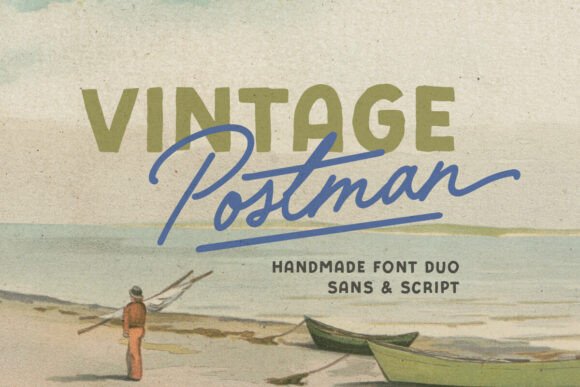
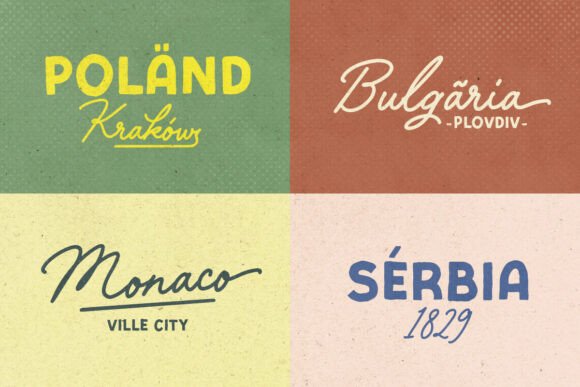
Transport your creative projects back in time with Vintage Postman, an exceptionally charming handmade font duo that effortlessly channels classic, old-school aesthetics. This unique pairing combines a sturdy, bold sans-serif with a graceful monoline script, making it a spectacular and highly versatile addition to your personal library of Script Fonts.
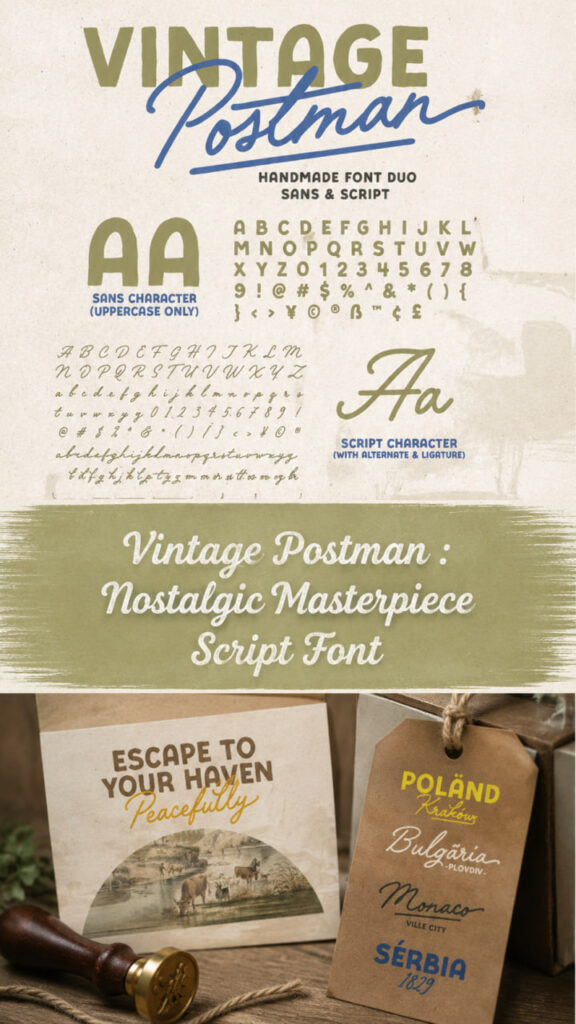
Specifically crafted for creators who crave authentic retro vibes, this dual-style gem is the ultimate choice for styling eye-catching event posters, nostalgic logotypes, inspirational quotes, and character-filled branding. Packed with gorgeous alternates, smooth ligatures, and decorative swash lines, it allows you to customize your layouts with a truly custom, handcrafted appeal. Embrace the cozy nostalgia of this vintage powerhouse today and watch your next artistic design come to life with timeless charm!
Vintage Story Font: A Rustic Treasure for Your Script Fonts Library
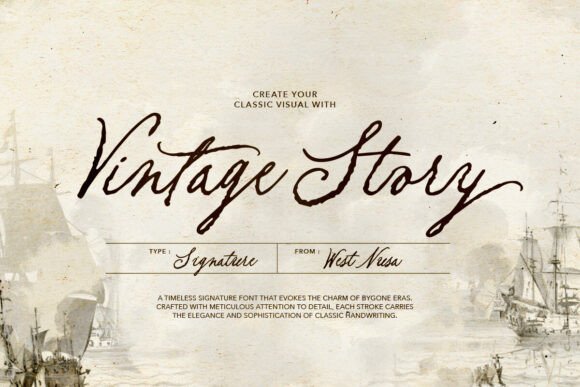
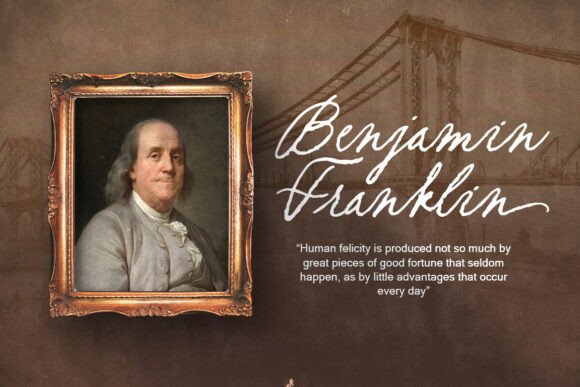
Embrace the weathered, rustic beauty of a bygone era with Vintage Story, a handwritten script typeface that radiates a cozy and nostalgic atmosphere. With its organic strokes and old-world charm, this stunning selection is a must-have addition to any curated library of Script Fonts, offering a raw authenticity that is hard to find in modern digital designs.
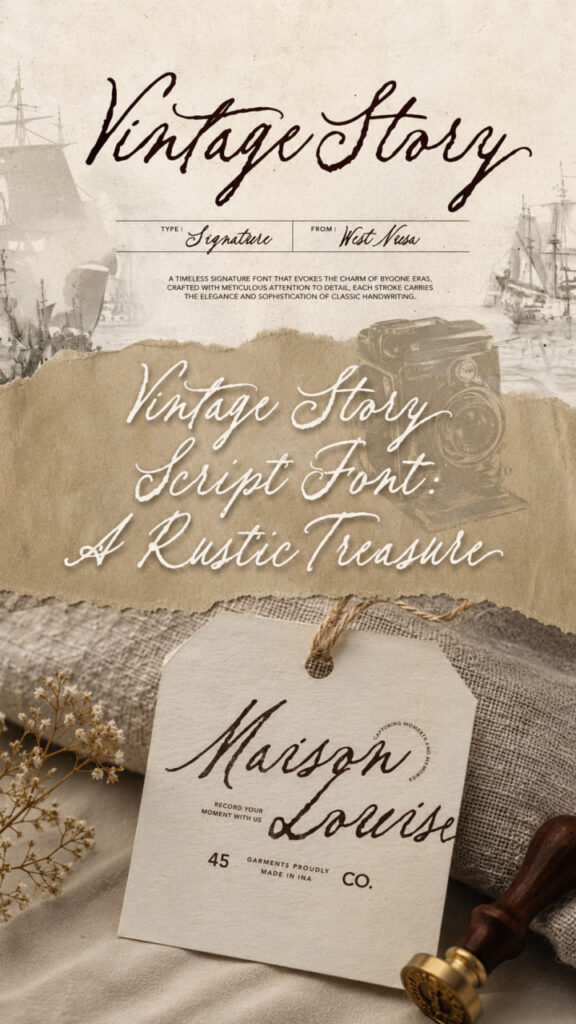
This vintage gem is the ideal choice for projects that require a deep emotional connection, such as romantic wedding invitations, heartfelt love letters, and artisanal branding. Thanks to its beautiful ligatures and stylish alternates, Vintage Story allows you to craft unique signatures and memorable quotes that look effortlessly handcrafted and full of character. Add this rustic treasure to your toolkit and let your designs tell a story that transcends time!
Vintage Font: A Fancy and Professional Choice for Script Fonts Enthusiasts
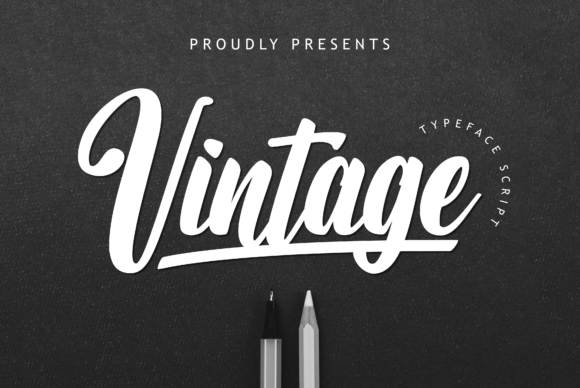
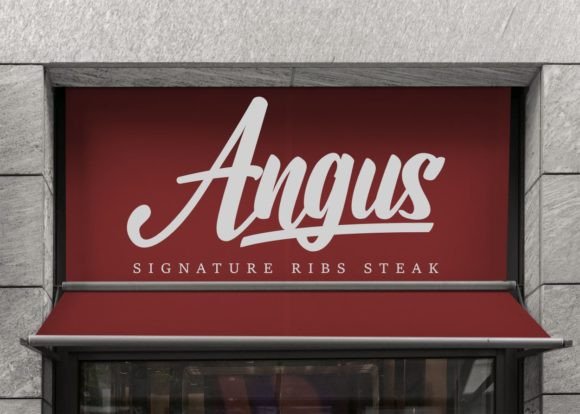
Stepping onto the scene with an air of pure sophistication, Vintage is a fancy, cursive typeface that seamlessly bridges the gap between classic charm and professional design. Carefully and neatly crafted, this assertive style is engineered to make your text look instantly polished, structured, and incredibly attractive on any canvas.
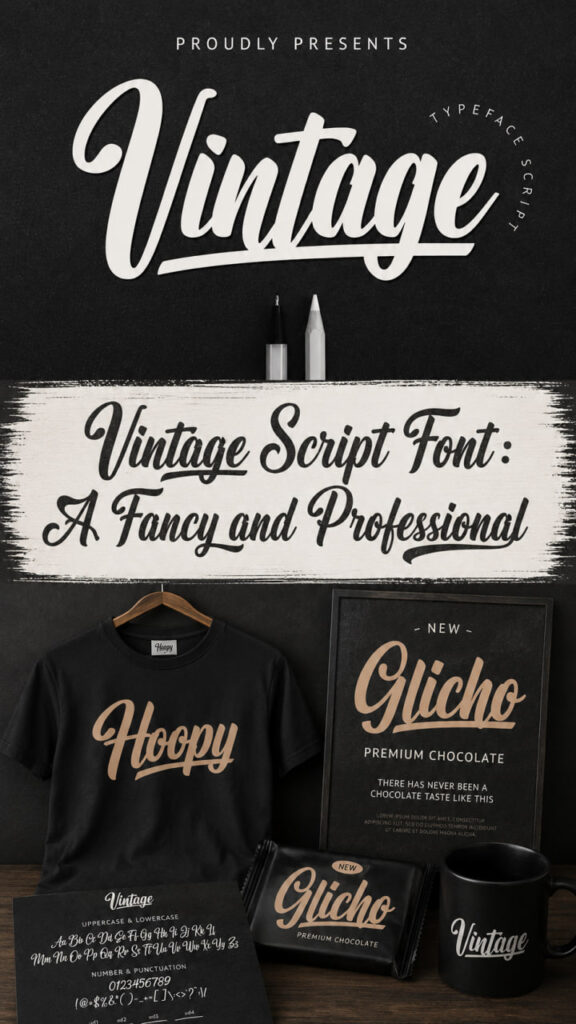
It serves as a highly versatile addition to your curated collection of Script Fonts, bringing a refined, hand-drawn elegance to prominent headlines, custom corporate logos, and digital designs. Whether you are printing eye-catching apparel, creating retro brand merchandise, or starting a new DIY crafting project, this standout vintage selection offers the perfect blend of decorative flair and bold legibility to ensure your final design commands attention.
Vintage Melinda Font: Capturing Legacy Opulence for Script Fonts Lovers
Transport your audience straight to a golden era of design with Vintage Melinda, an exquisitely timeless typeface meticulously crafted to capture the cozy warmth of retro romance. Seamlessly blending classic elegance with a distinct vintage vibe, this stunning selection represents a gorgeous and highly sophisticated addition to your personal library of Script Fonts.
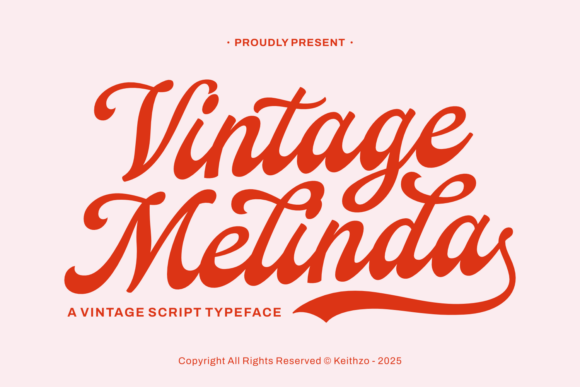
With its fluid, hand-lettered lines, this calligraphic masterwork is the ultimate choice for creators wanting to infuse a dose of “legacy opulence” or a “rustic sophisticated” aura into their designs. It brings a deeply personal flair to romantic greeting cards, elegant wedding invitations, and bespoke stationery suites. Beyond event styling, Vintage Melinda features refined swashes and seamless transitions that make it a premier choice for high-end packaging, fashion magazines, and luxury branding. Best of all, it is PUA encoded, meaning all of its special characters and decorative flourishes are completely accessible with zero hassle.
Vintage Haven Font: A Cinematic Addition to Your Script Fonts Library
Let your designs tell a cinematic story with Vintage Haven, a tenderly curated typeface that weaves together nostalgia and modern style in a remarkable fusion. Thoughtfully designed to infuse your visual narratives with warmth and a dash of filmic allure, this striking option takes its inspiration from classic lifestyle photography and the timeless elegance of retro editorial layouts.
By beautifully combining subtle cursive motion with rich, textured strokes, it serves as a highly versatile addition to your curated collection of Script Fonts. This stunning vintage selection is the perfect companion for eye-catching headlines, avant-garde fashion lookbooks, distinguished brand identities, and custom product packaging. Equipped with universal linguistic support and a flawless cursive flow, Vintage Haven ensures your storytelling reaches new heights in both digital and print landscapes.
Complete Your Retro Toolkit Today